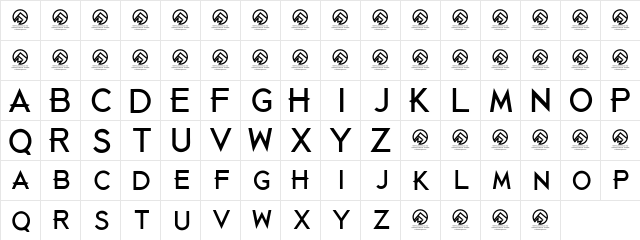
Just Die Already Black Black
Design Context for Just Die Already Black Typeface
Just Die Already Black is a composed and adaptable typeface that performs quietly and consistently across a wide range of design contexts.